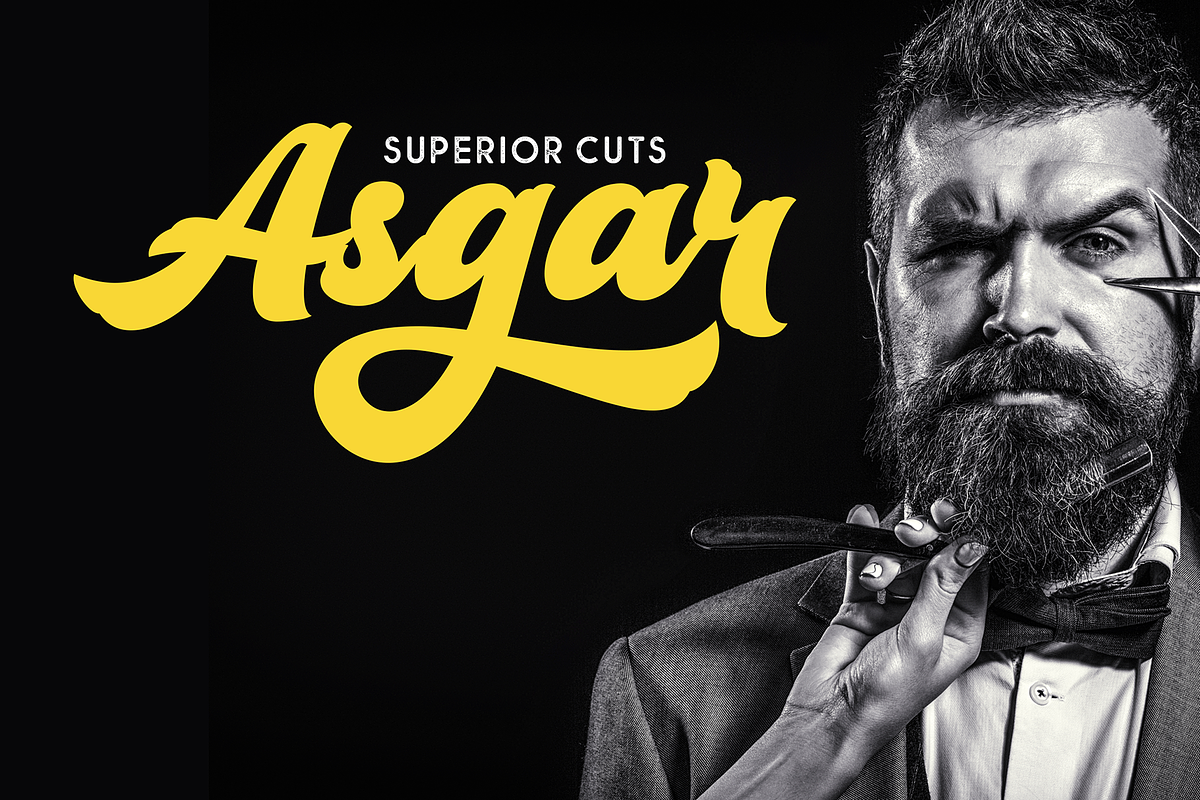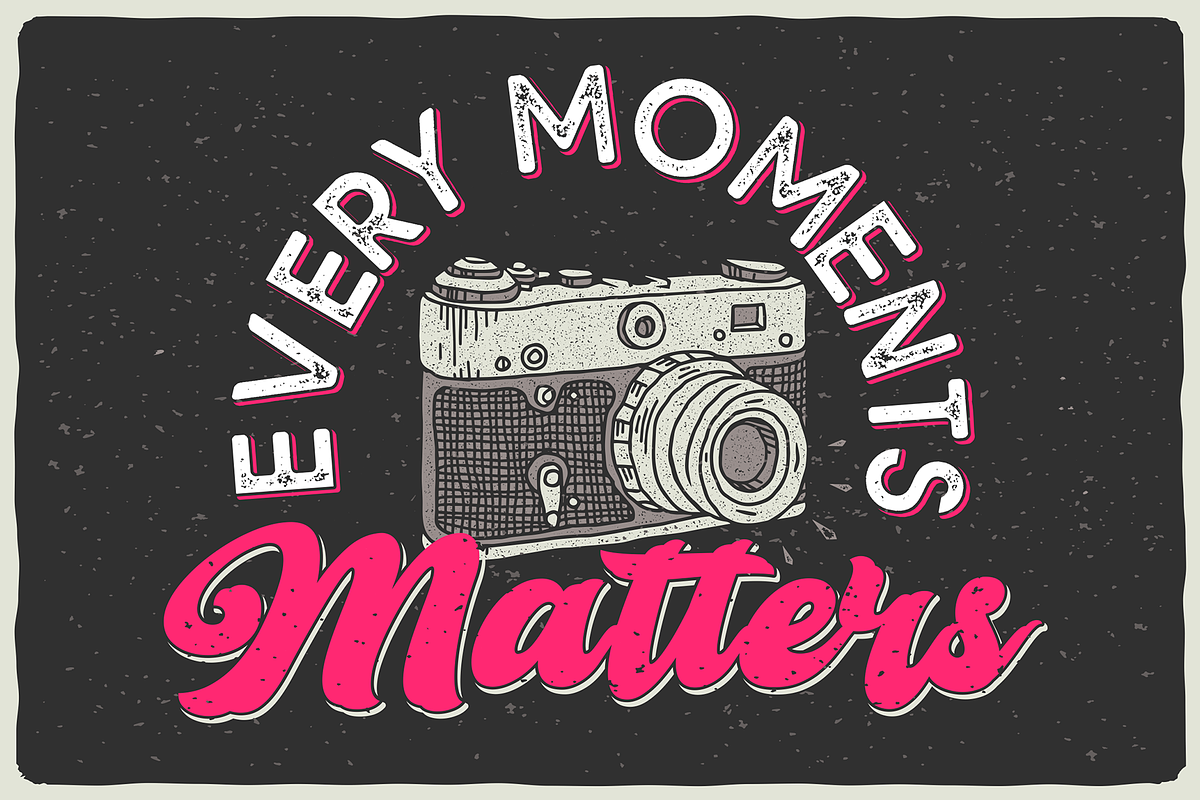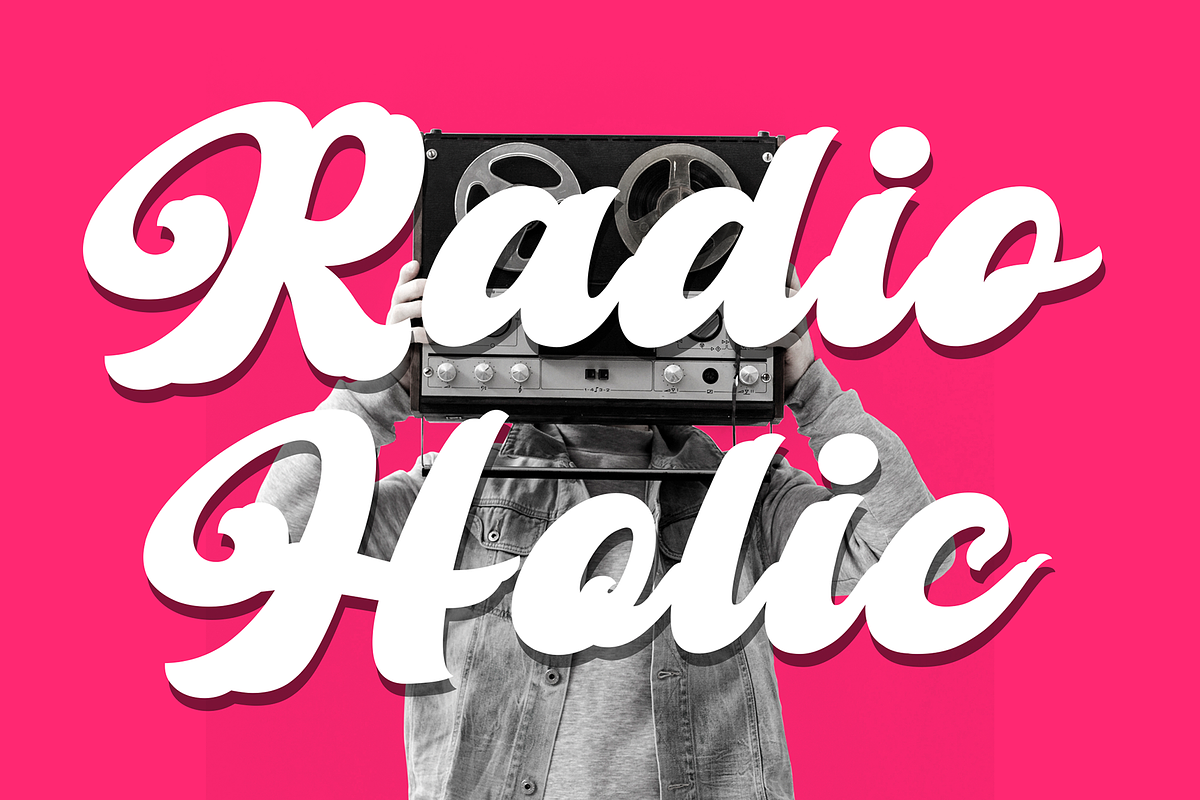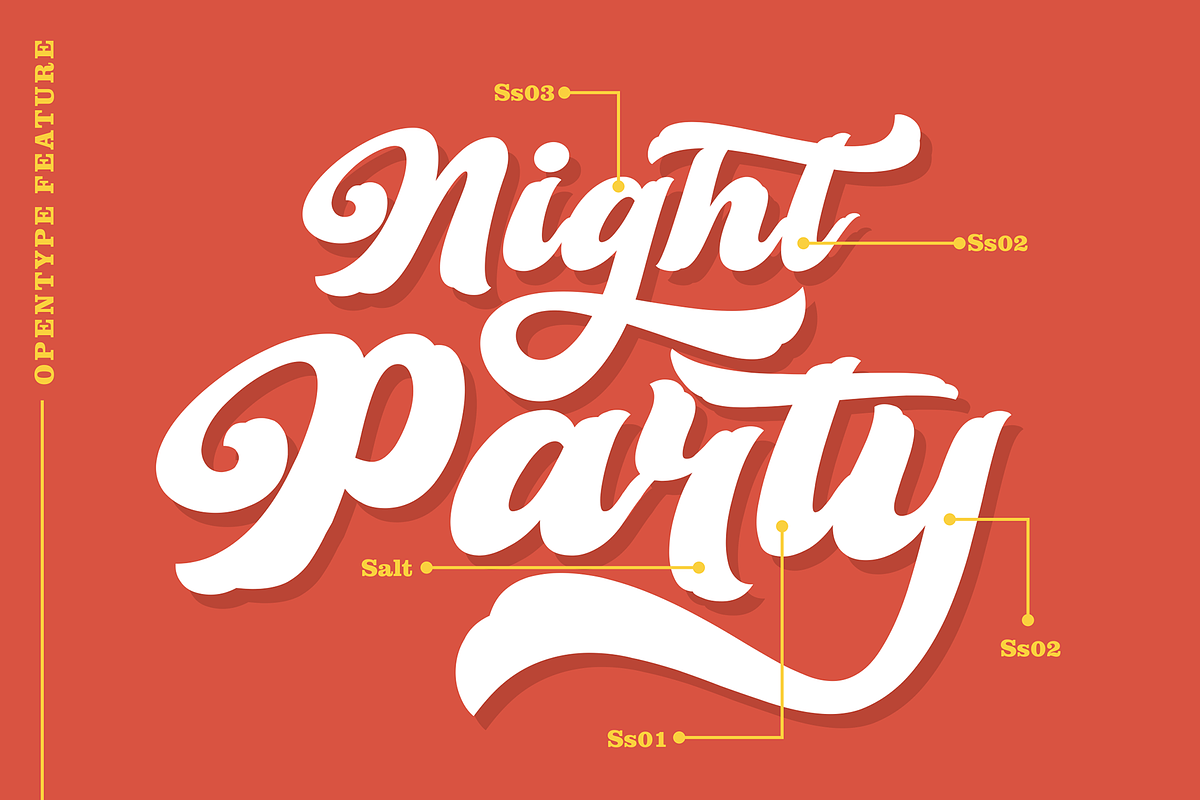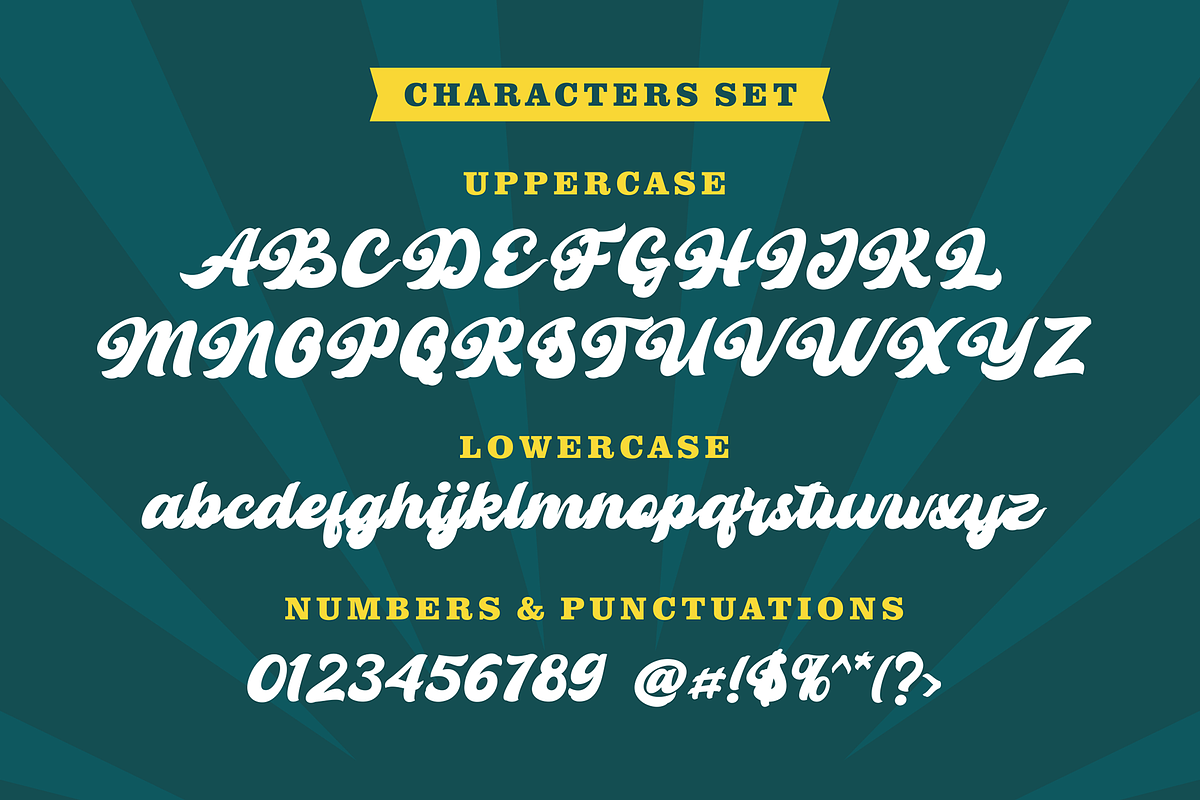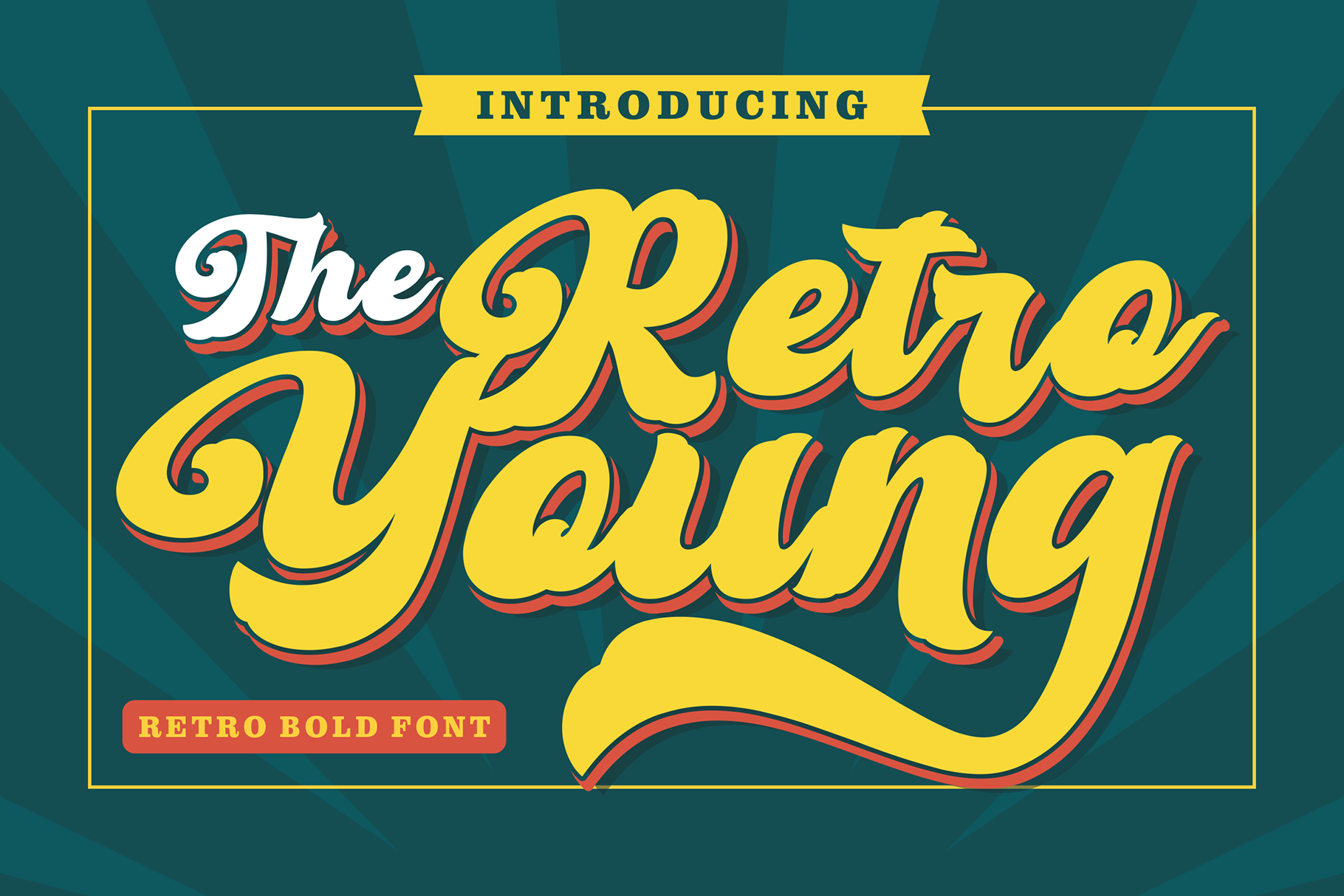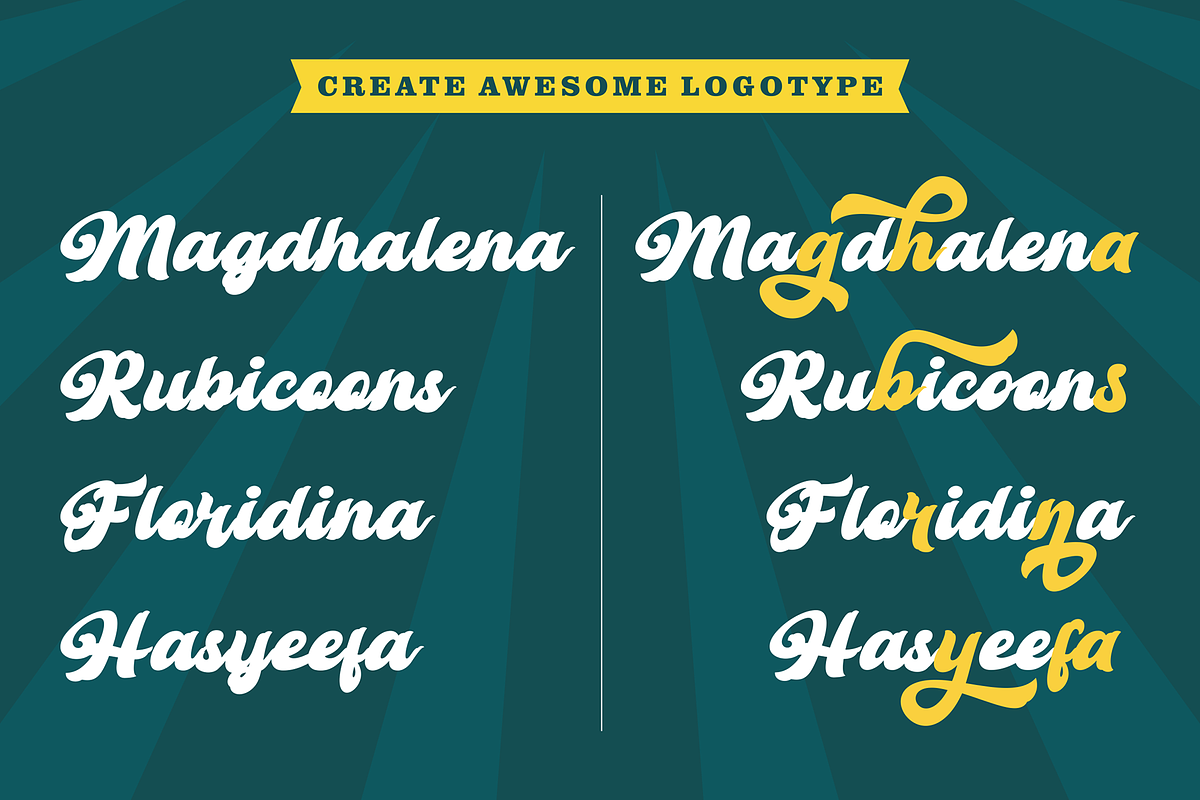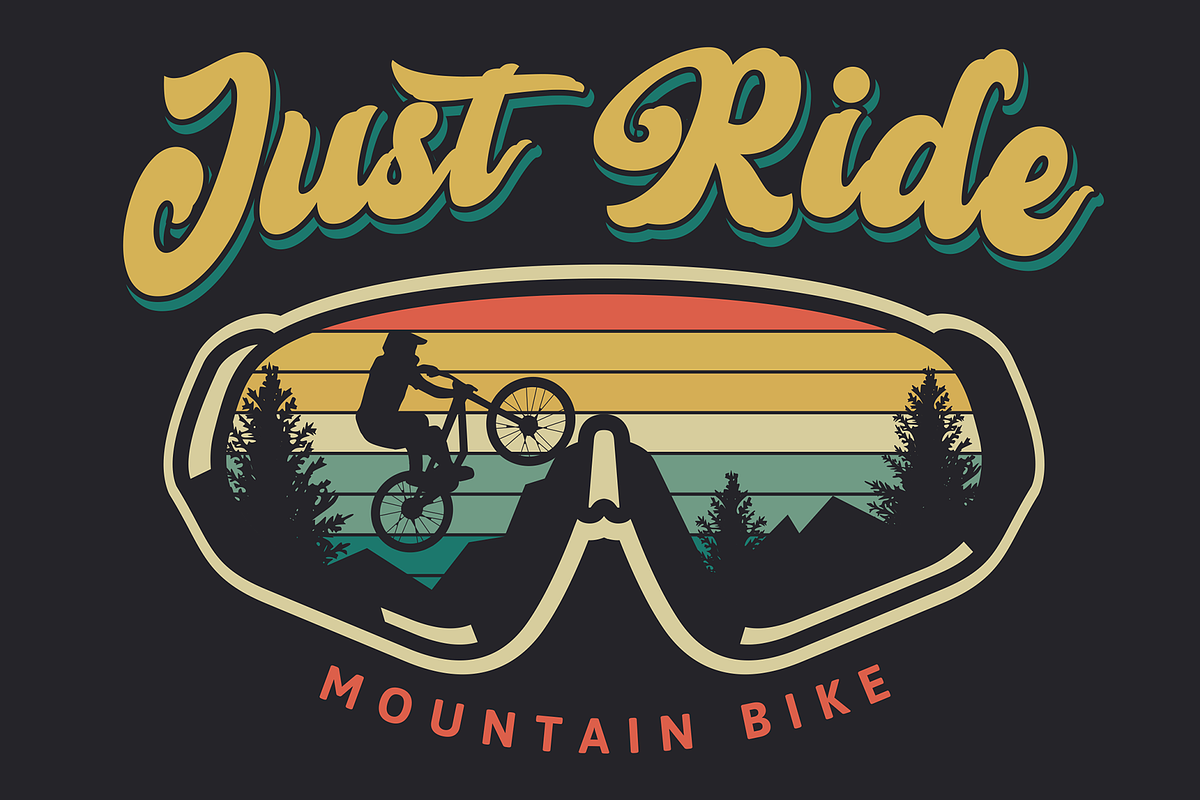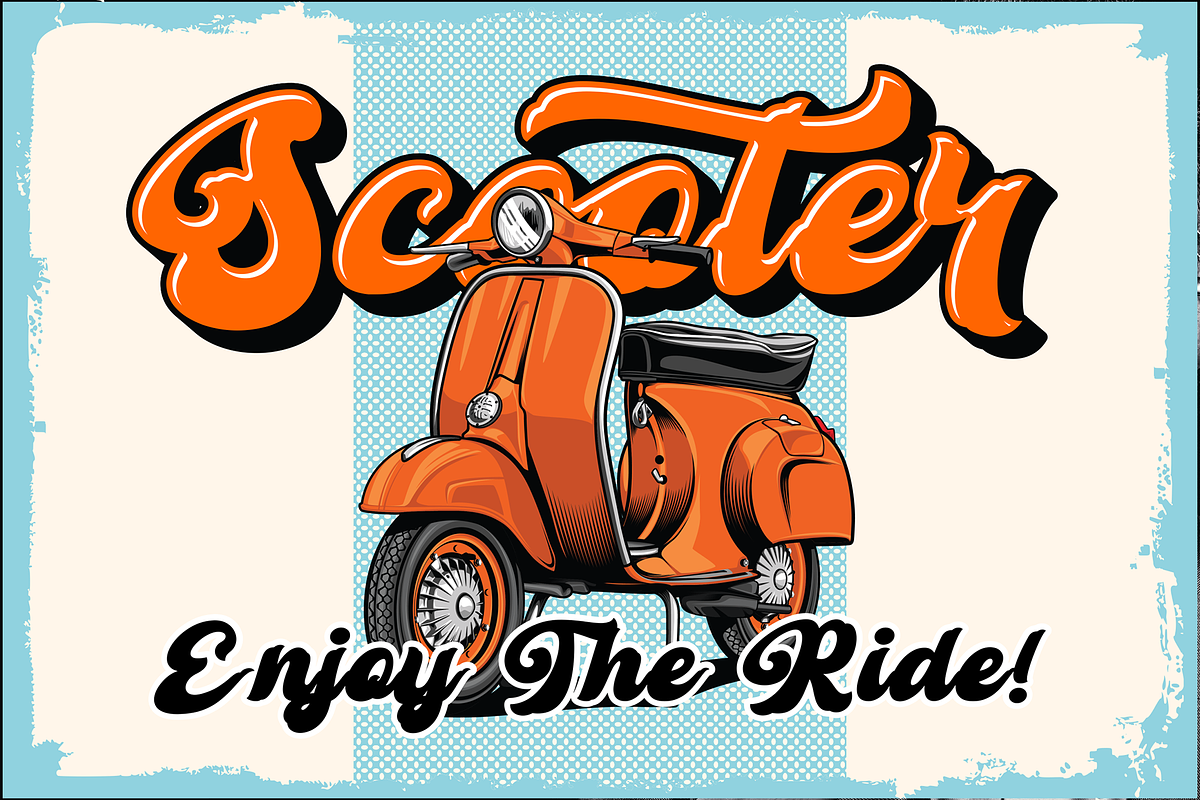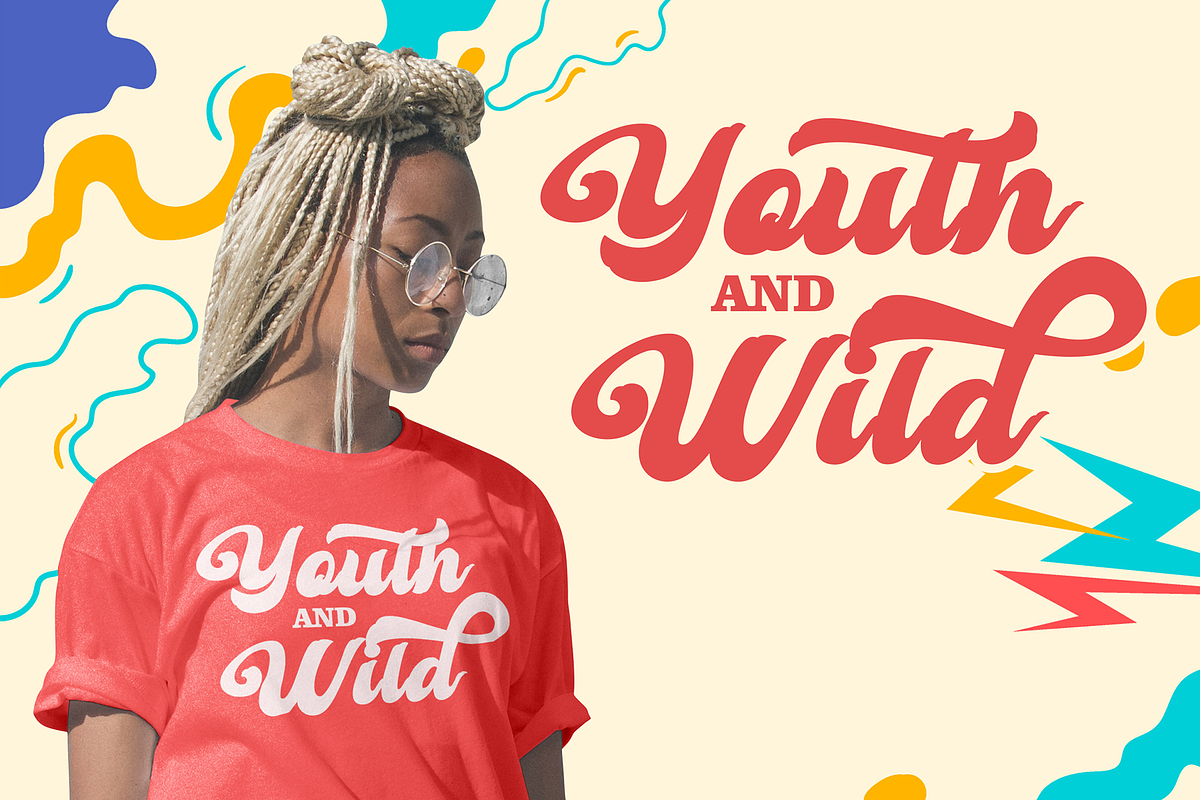
Retro Young - Vintage Bold Font
Retro Young is a vintage bold script, inspired by a Retro aesthetic. Made in combination with hand lettering, it comes with dramatic movement and it’s great for any next creative project that needs a retro vibe or modern touch.
Ideal for logos, handwritten quotes, product packaging, header, poster, merchandise, social media & greeting cards.